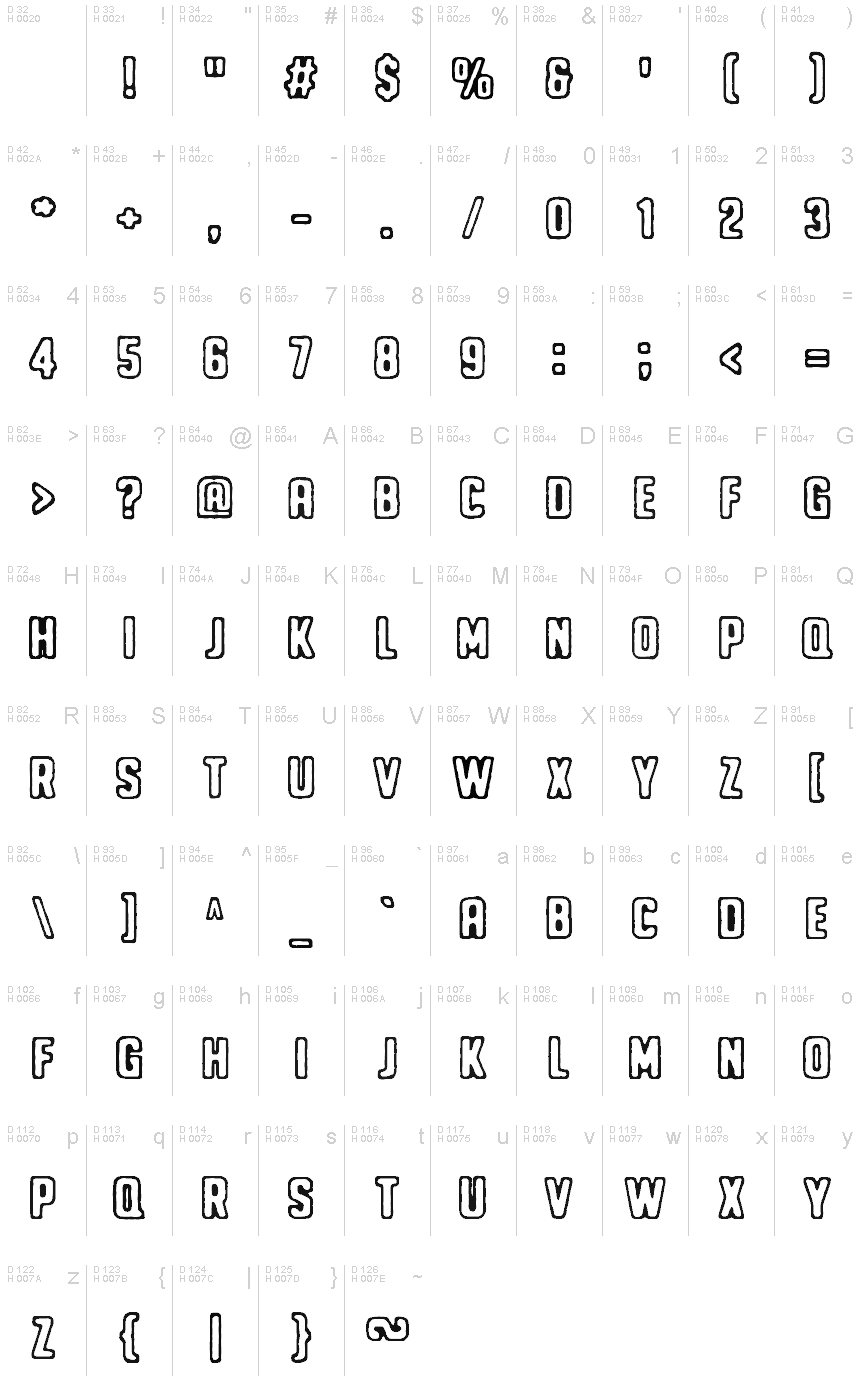
Noppalukemat
Noppalukemat is a captivating display font that embodies a distinct eroded and outlined aesthetic. Crafted by junkohanhero, this condensed typeface exudes a raw, gritty charm, inviting designers to explore its versatile applications. The font's distressed, weathered appearance lends an impactful, attention-grabbing quality, making it an ideal choice for headers, logos, and branding elements that aim to convey a sense of ruggedness and authenticity.
Noppalukemat's striking visual presence can elevate various design projects, from editorial layouts to product packaging, imbuing them with a striking, unconventional flair.